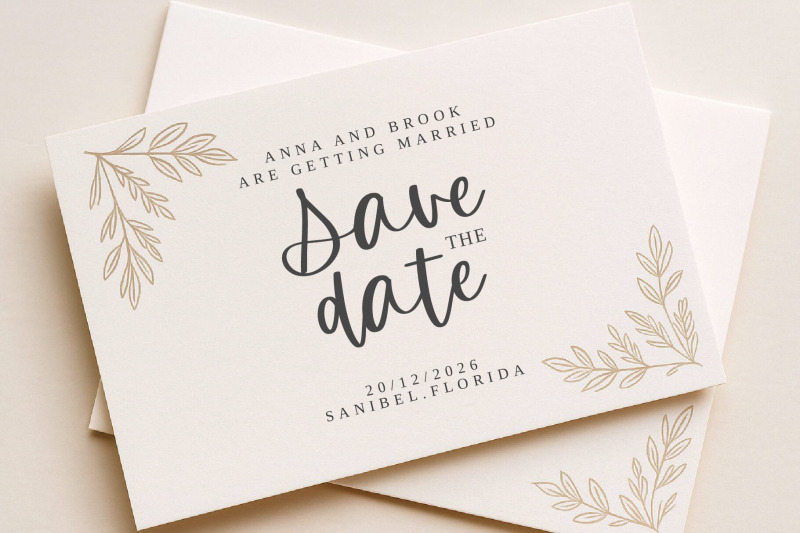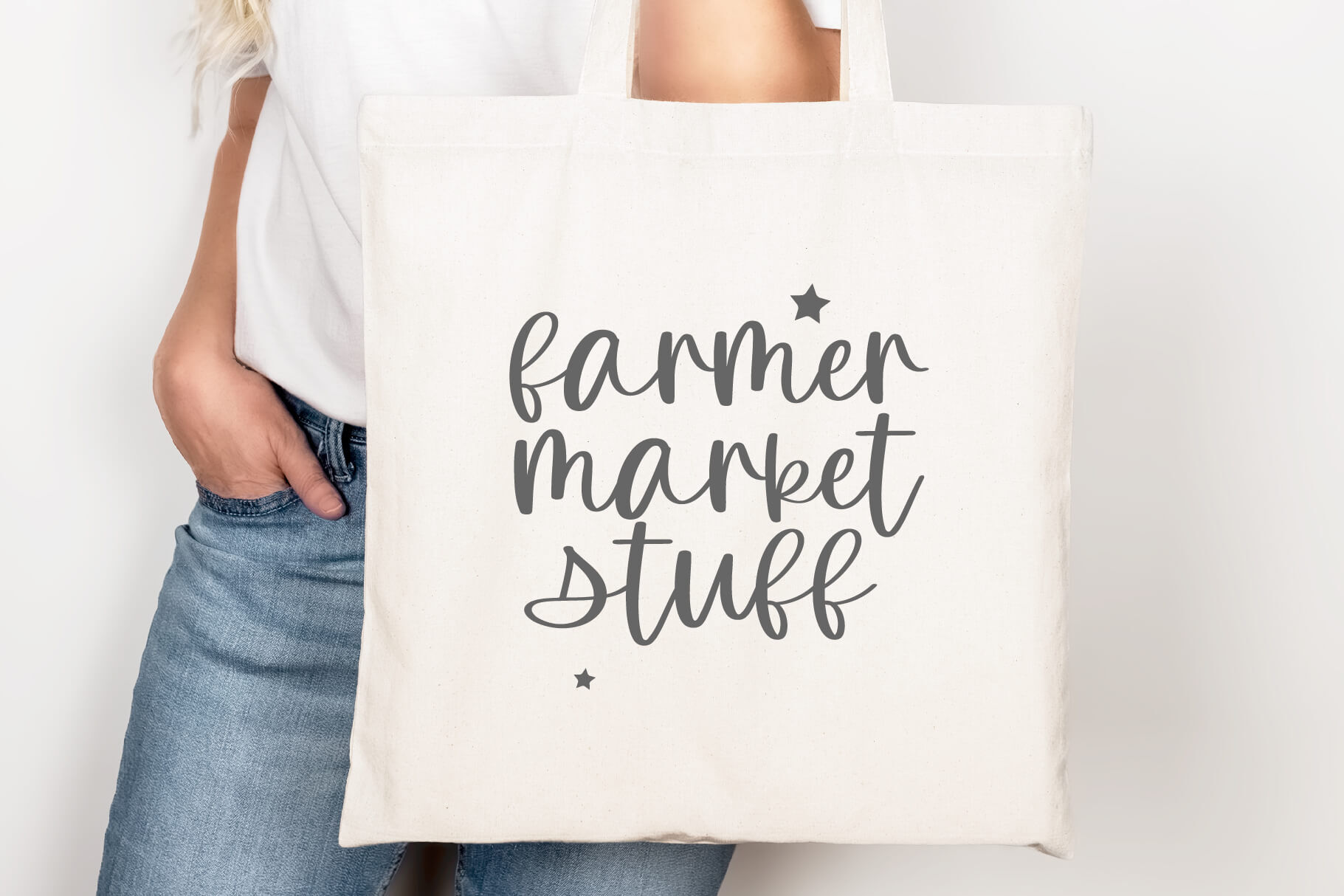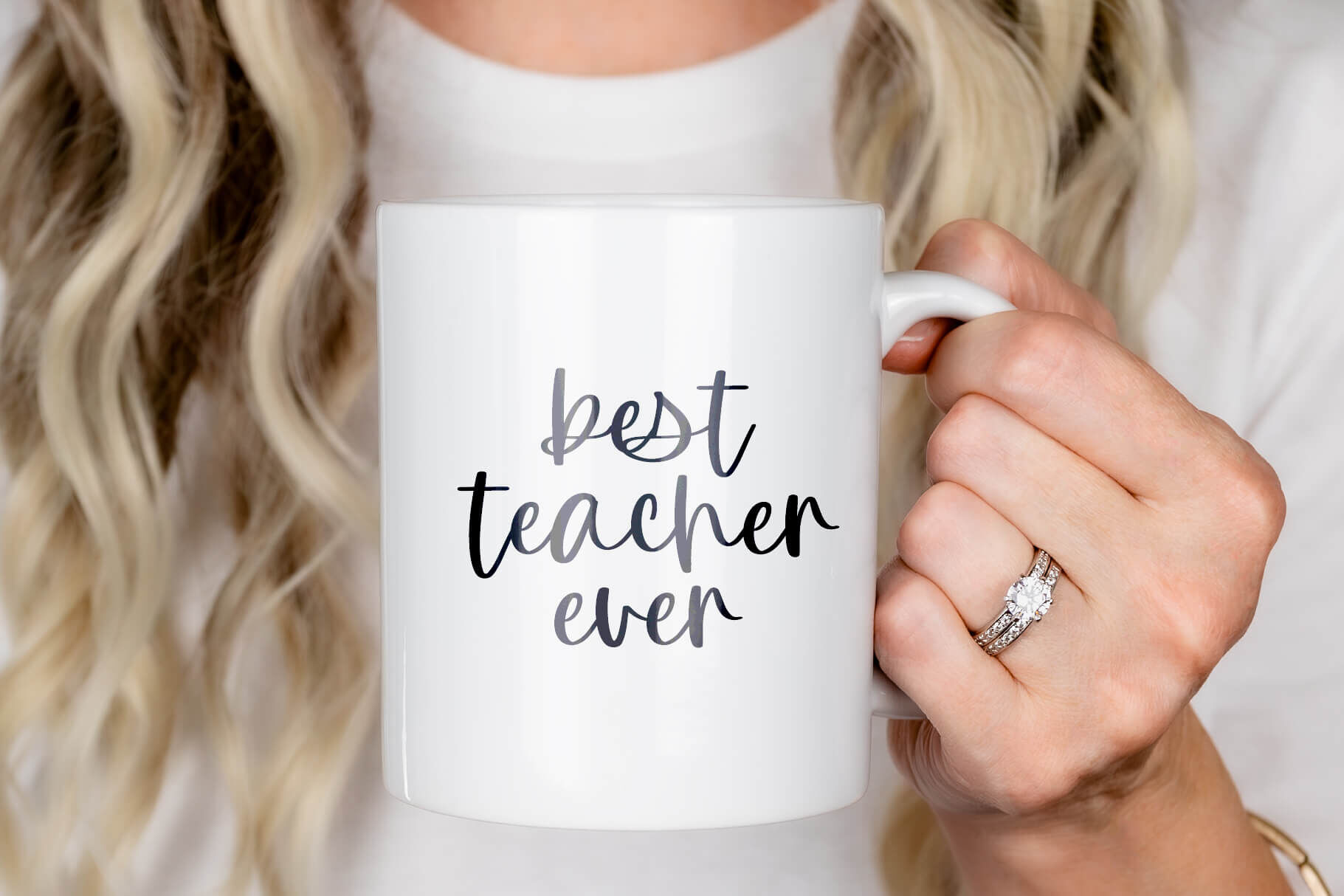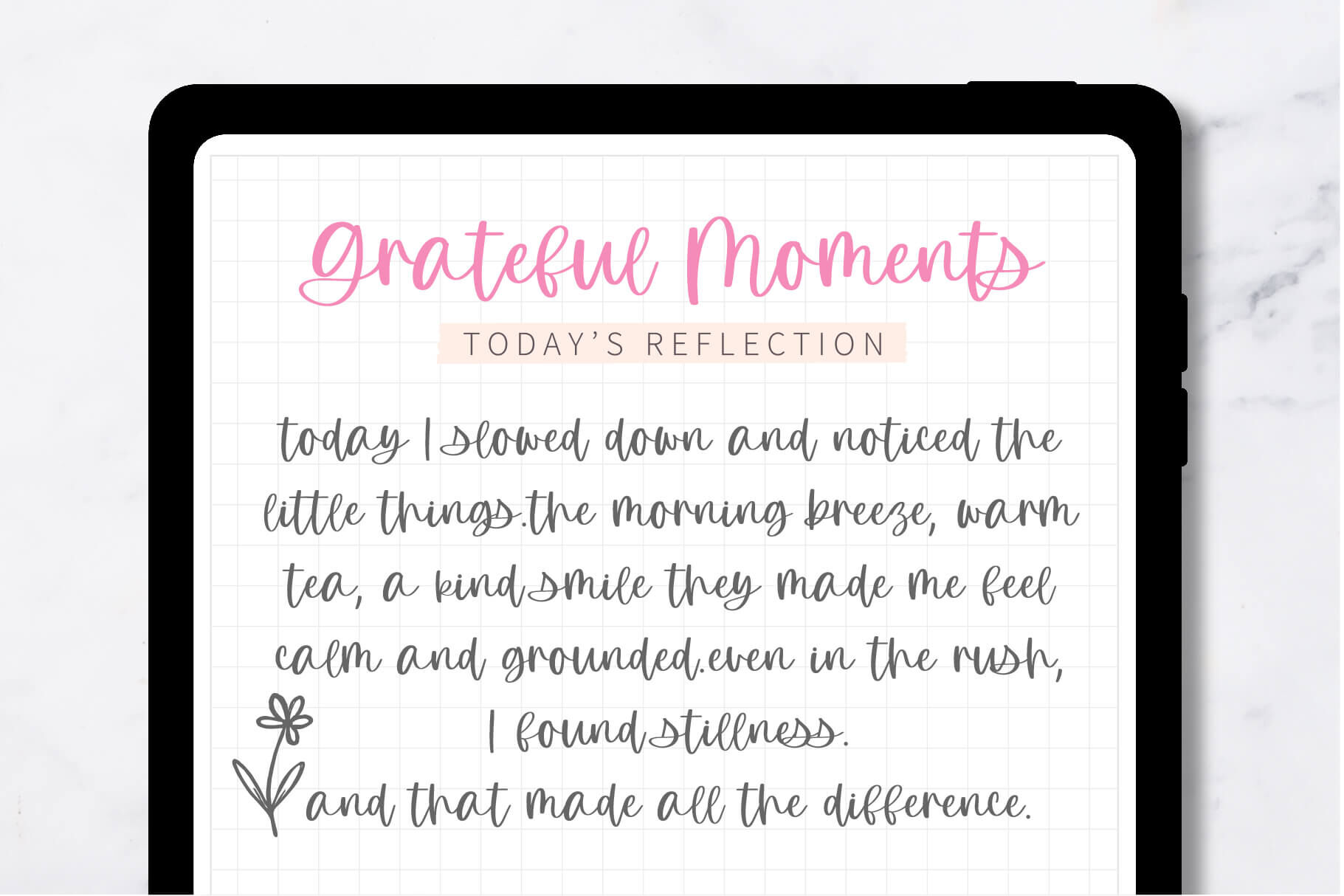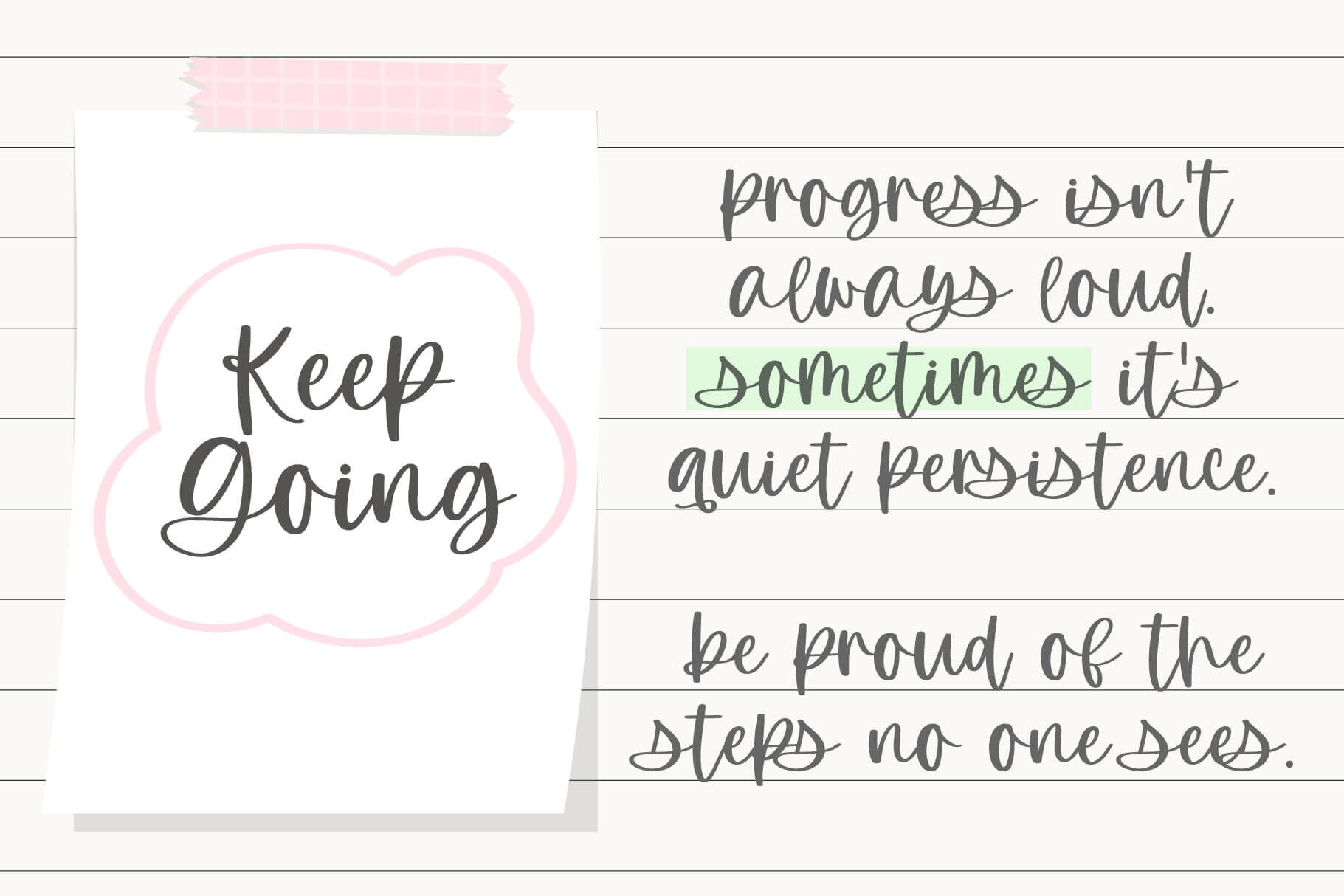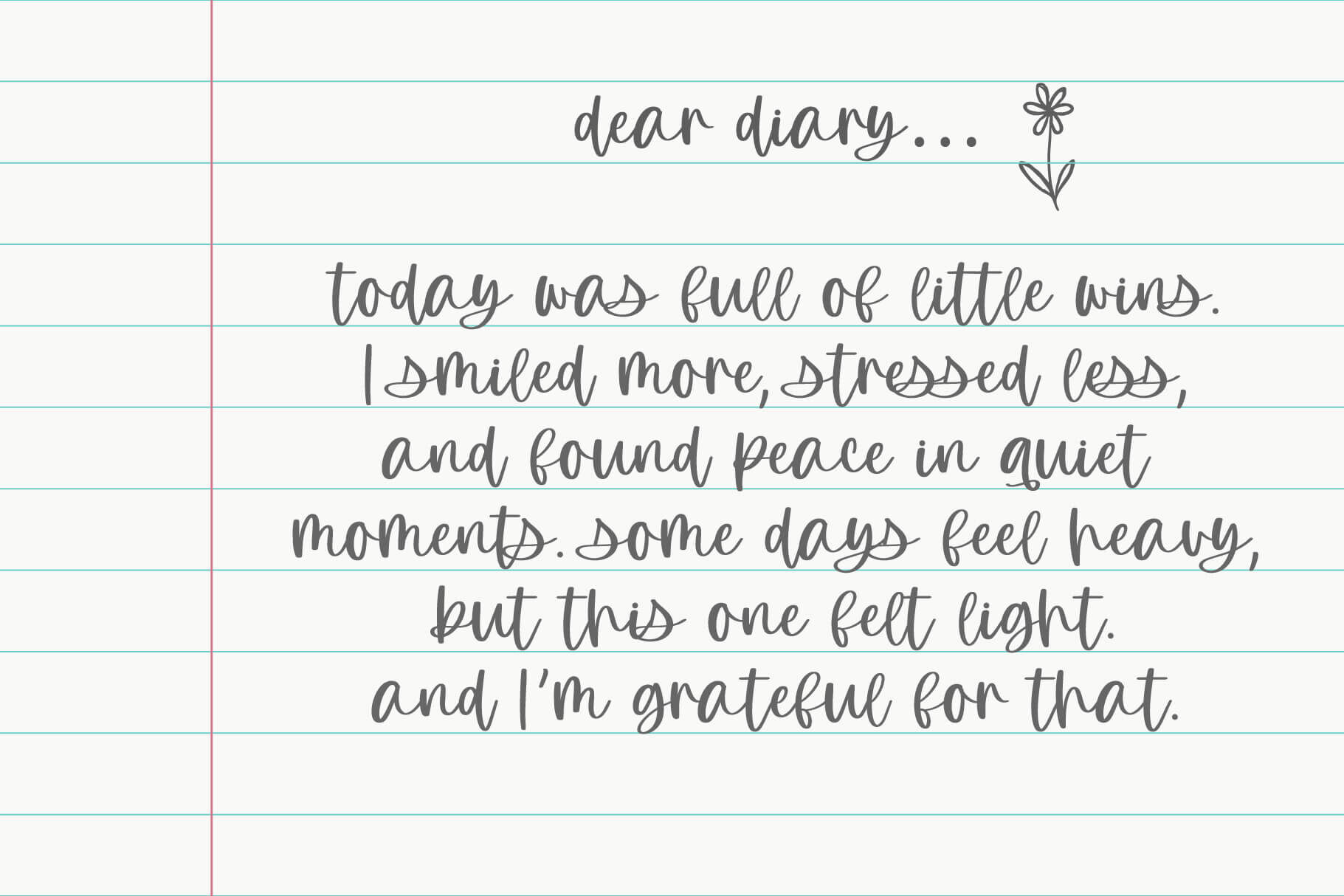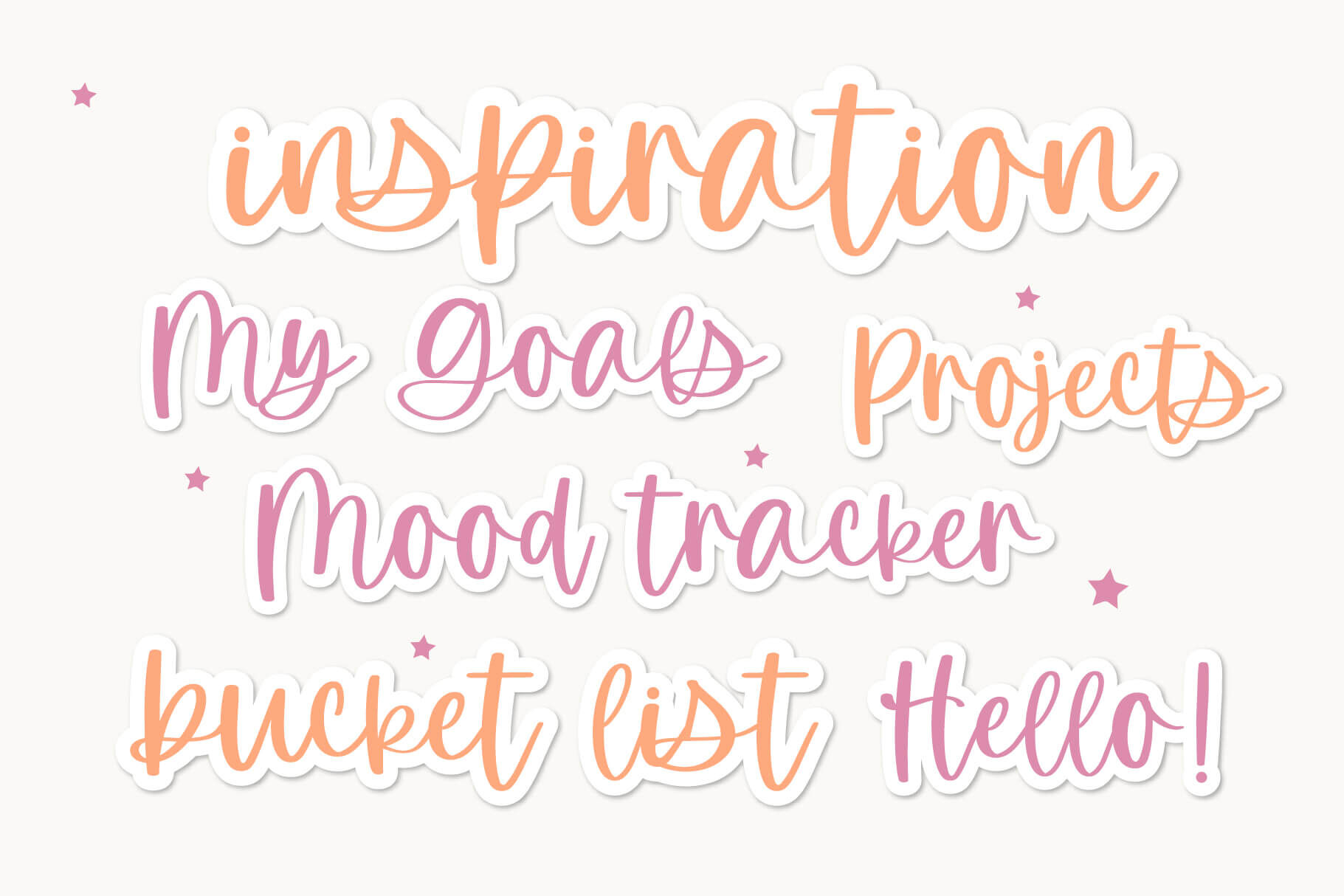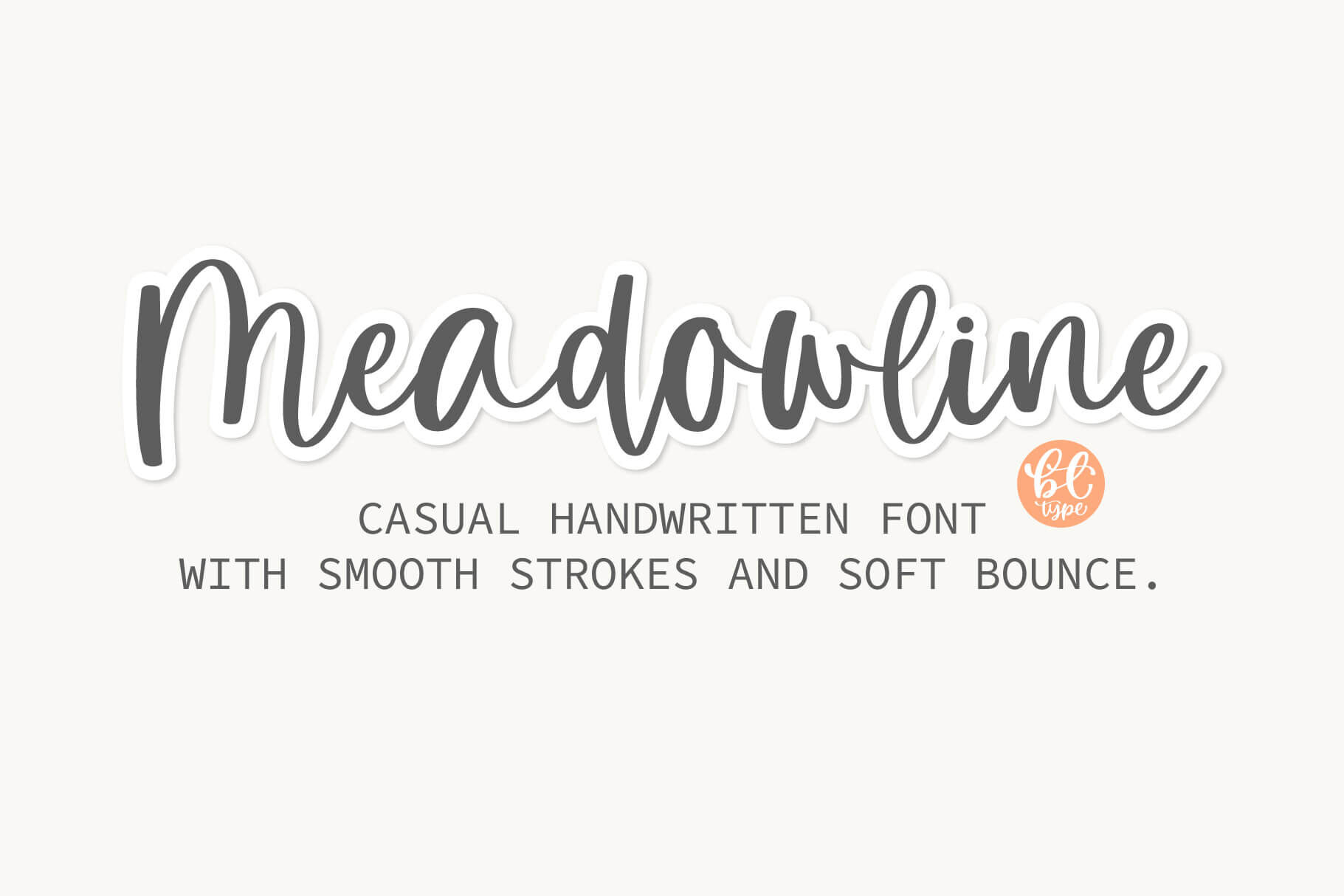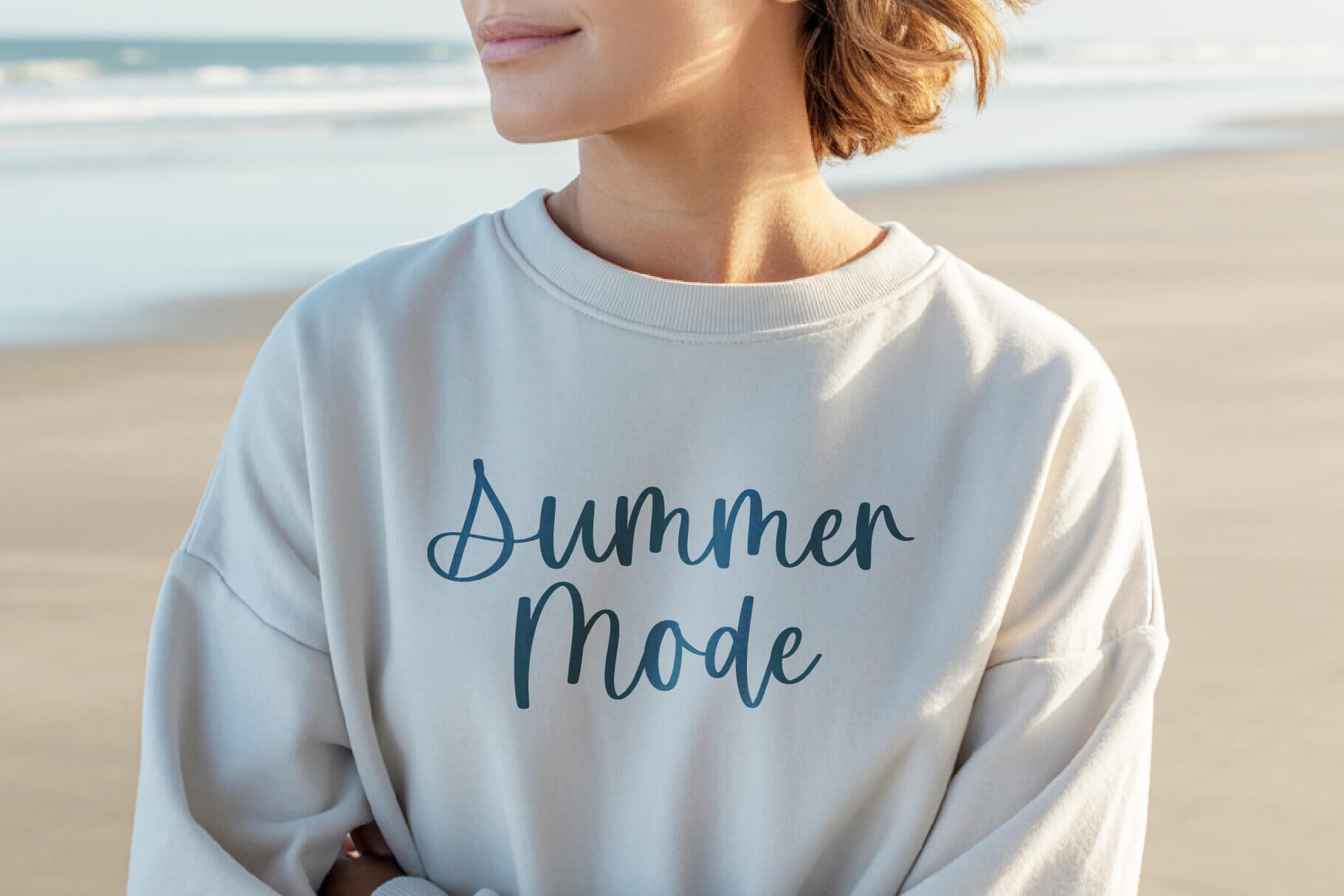
Meadowline is a casual handwritten script font with soft bounce and smooth strokes, perfectly crafted to feel like your own handwriting in real-time notes. Inspired by the natural flow of fast note-taking and lecture writing, this font brings a tidy yet confident look to your planner, journal, and digital projects.
Its easy-to-read form works beautifully as both body text and headers, giving charm to any layout. Whether you’re writing in Goodnotes, decorating a bullet journal, or designing stickers and craft projects, Meadowline adds a premium handwritten touch to every word.